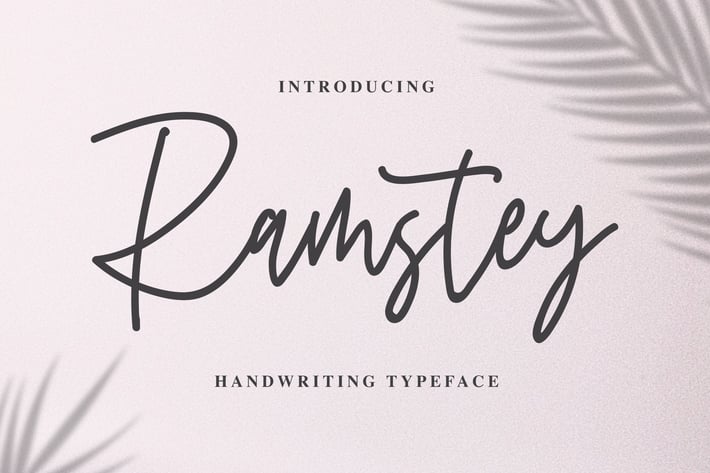
Ramstey - Handwritting Typeface
Introducing of our new product the name is Ramstey Handwritten Typeface. inspired by signature and stylish handwriting, Ramstey is good for logotype, wedding invitation design, badge, headline, signature, packaging and any more.